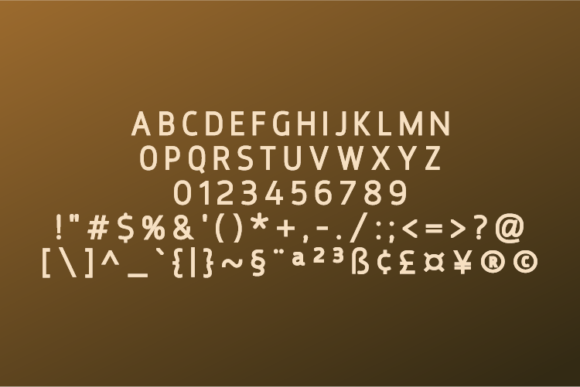
Introduction to Marwine Font
Have you ever been working on a creative project, pouring your heart and soul into it, only to realize that the perfect font is just out of reach? The words on the page, or the screen, just aren’t coming together as you envisioned them. That’s where the Marwine Font comes in – a game-changing, elegant sans serif font that will elevate your design to new heights.
With its unique blend of traditional influences and contemporary aesthetic, the Marwine Font offers the perfect balance of style and sophistication. Whether you’re working on a high-quality brochure, a free download for a client, or a complex design project that requires maximum versatility, this font is sure to deliver. Its well-balanced Latin details and distinctive contrasts make it the perfect choice for designers who demand the best.
Key Features of Marwine Font
- High-quality design resource with a modern and elegant style
- Transparent background for seamless integration with any creative project
- Supports a wide range of languages, making it ideal for international projects
- Comes in a single font size of 300 DPI, ensuring crisp and clear readability
- Perfect for use in graphic design, digital art, and other creative projects requiring a unique and stylish font
Honest Review: Marwine Font
I recently had the chance to work with the Marwine Font, and I must say it’s been a game-changer for my creative project. This font is a valuable design resource that’s perfect for any high-quality design.
- ✨ The Marwine Font has a clean and modern design that’s perfect for a variety of creative projects.
- ✨ The Marwine Font is highly customizable, allowing you to create a unique and professional look for your design.
- ⚠️ The font only comes in a few different weights, which can limit its versatility in certain design situations.
- ⚠️ The Marwine Font doesn’t have a transparent background option, which can make it difficult to use in certain design scenarios.
The Marwine Font is a versatile design resource that can be used in a variety of creative projects, including brochures, business cards, and presentations. Its high-quality design and transparent background make it perfect for use in any design project where a professional look is required.
To get the most out of the Marwine Font, be sure to use it in conjunction with a high-quality image or background to create a visually appealing design. Also, experiment with different font sizes and styles to add emphasis and interest to your text elements.